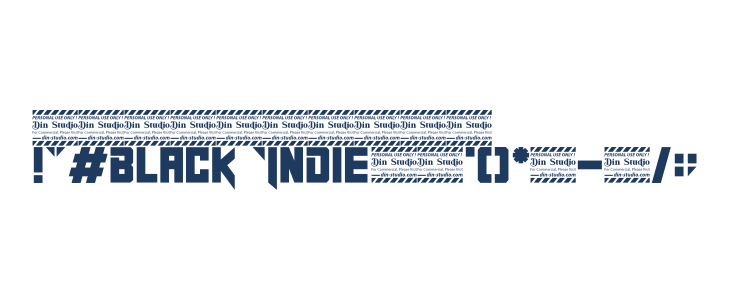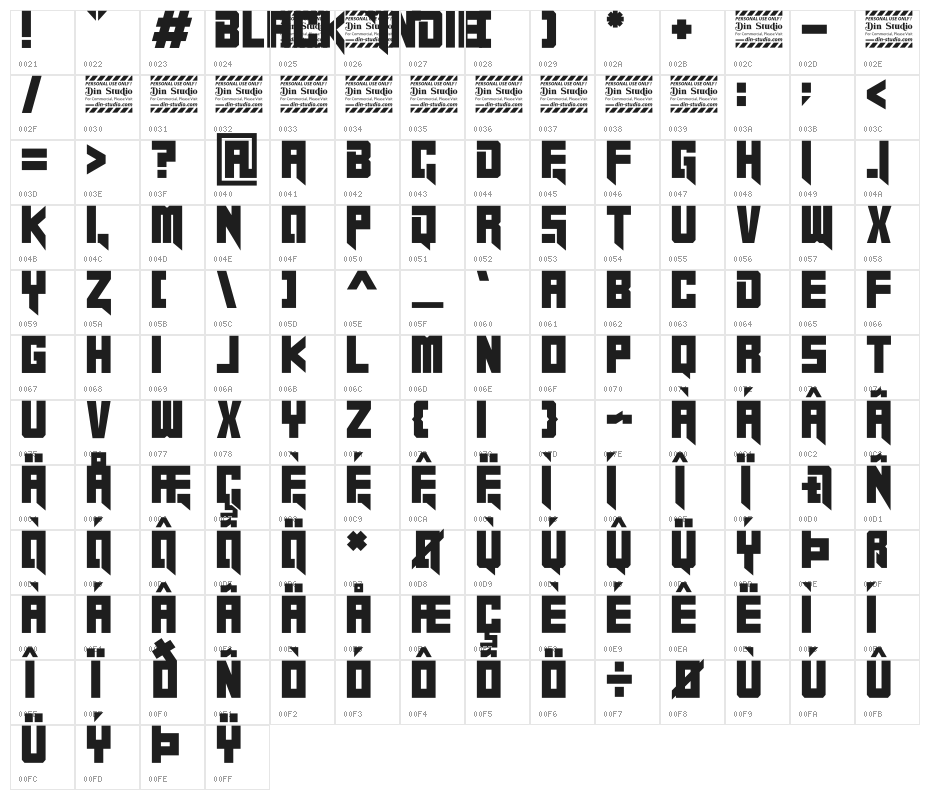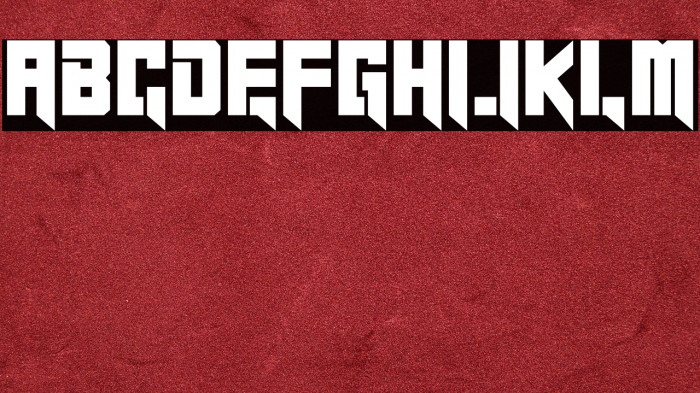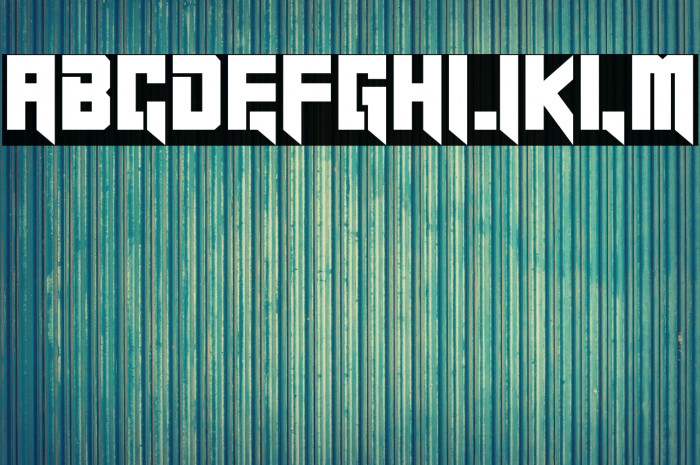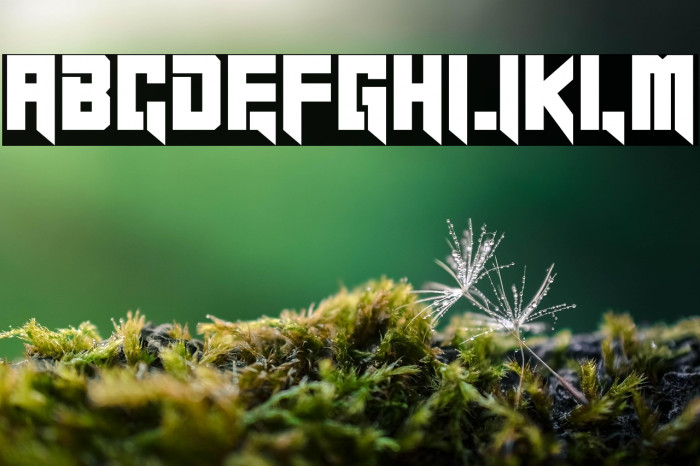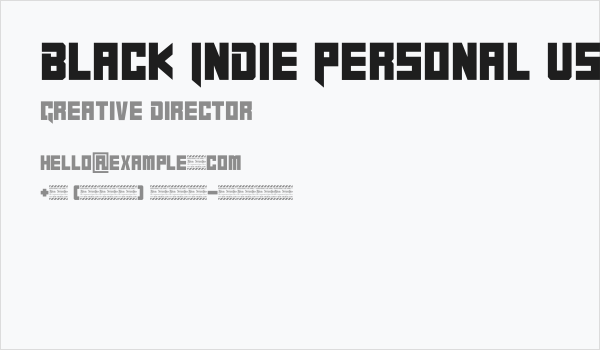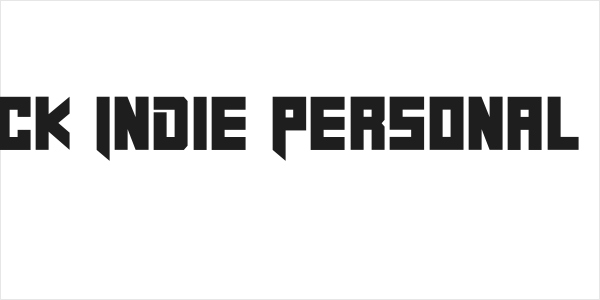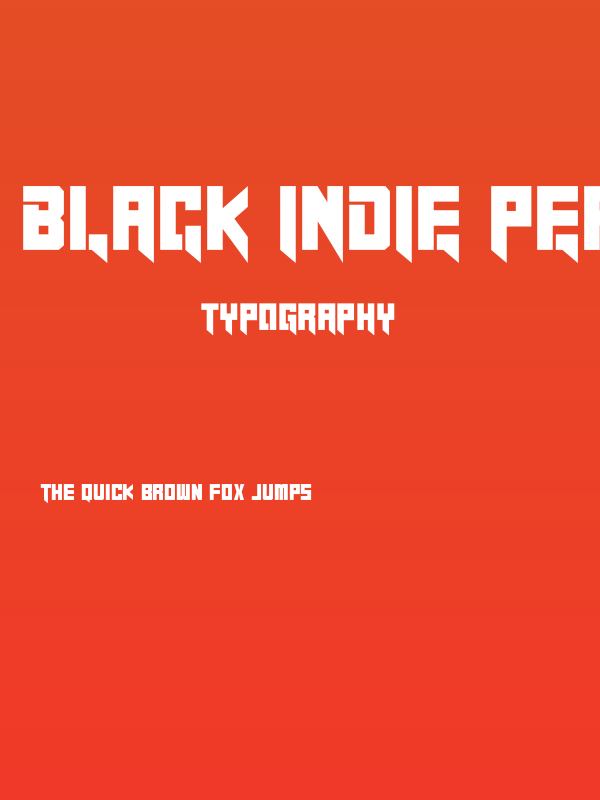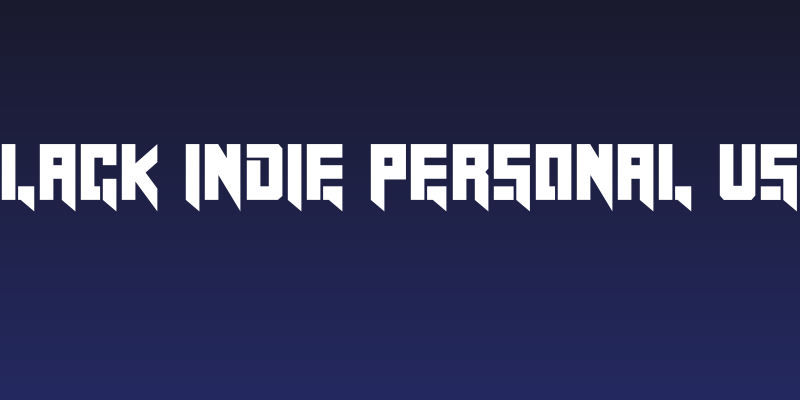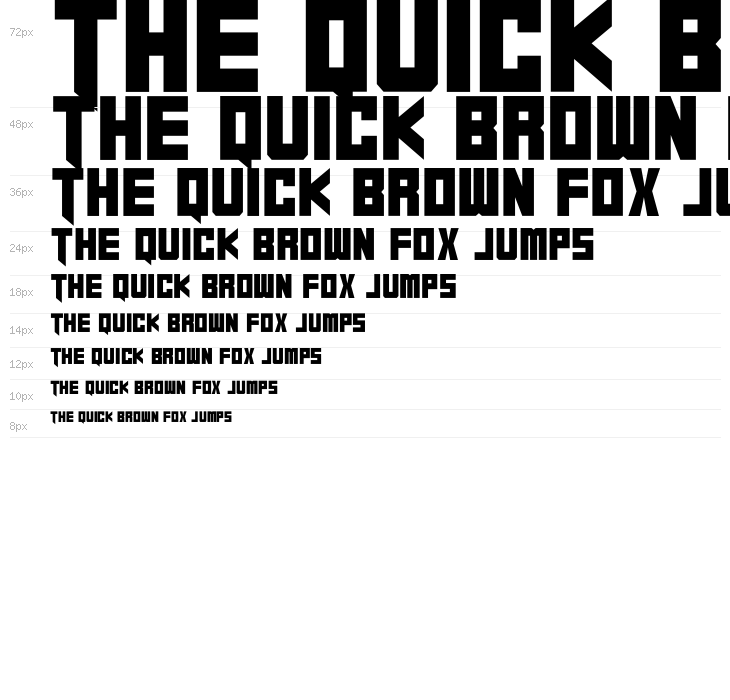
Black Indie Personal Use Font
Black Indie Personal Use Description
This font features a bold and geometric design with sharp angles and a strong presence. The uppercase letters are blocky and assertive, making a powerful statement. The characters have a uniform thickness, contributing to a cohesive and impactful look. The style is reminiscent of industrial or futuristic themes, with a modern twist. The font is well-suited for attention-grabbing headlines or logos that require a bold and confident appearance. Its unique style makes it stand out, while maintaining readability.
| Proposed Projects | Ideal for branding, posters, album covers, and any project needing a strong, modern aesthetic. |